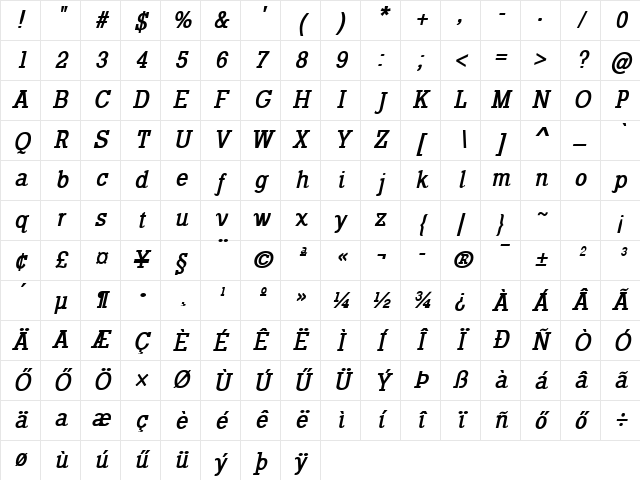
Hu_Rockford Cn BoldItalic Regular
Design Context for Hu_Rockford Cn BoldItalic
Hu_Rockford Cn BoldItalic is a composed and adaptable typeface that performs quietly and consistently across a wide range of design contexts. The slanted form adds forward momentum and visual energy. Its bold stroke weight gives it real presence on the page.